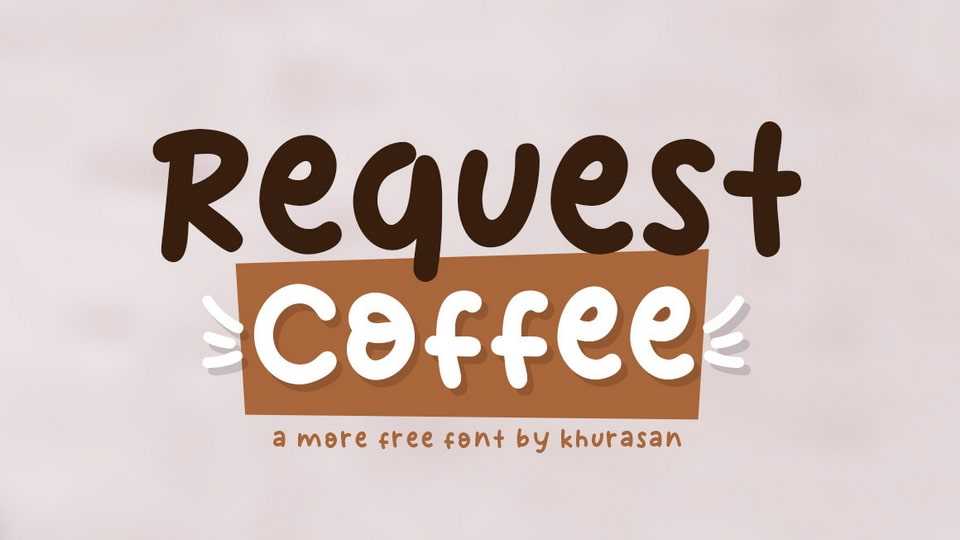
Download Request Coffee font, a simple and funny handwritten typeface. Request Coffee is perfect for posters, logos, magazines, book covers, banners, and many more lovely designs.